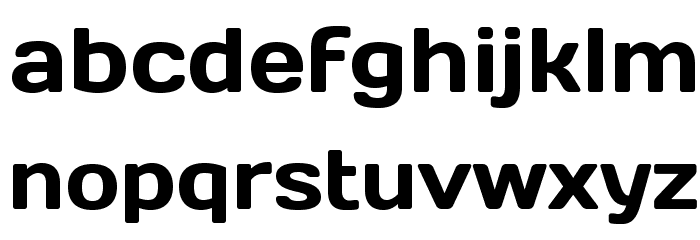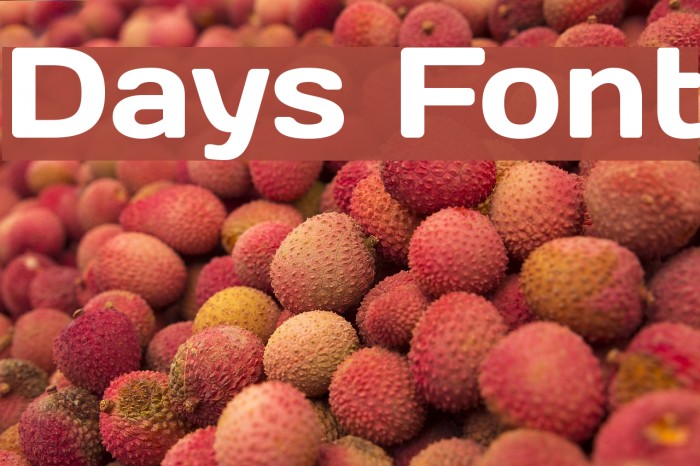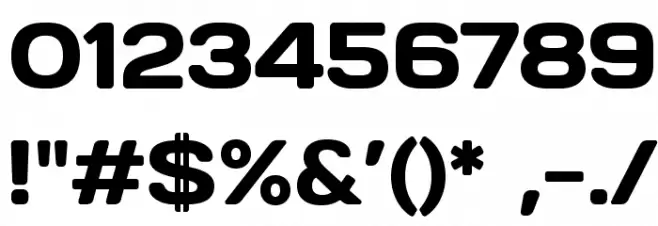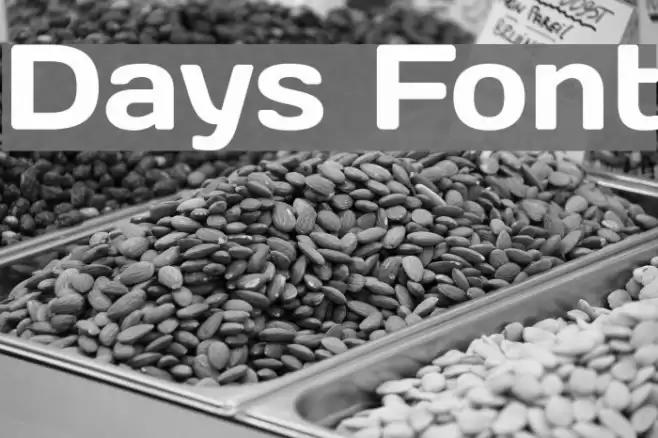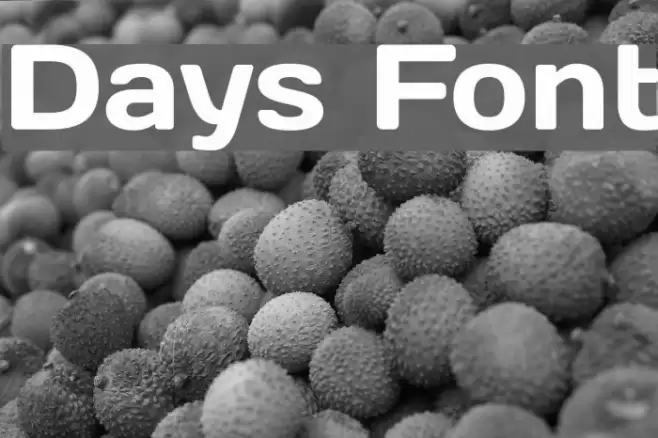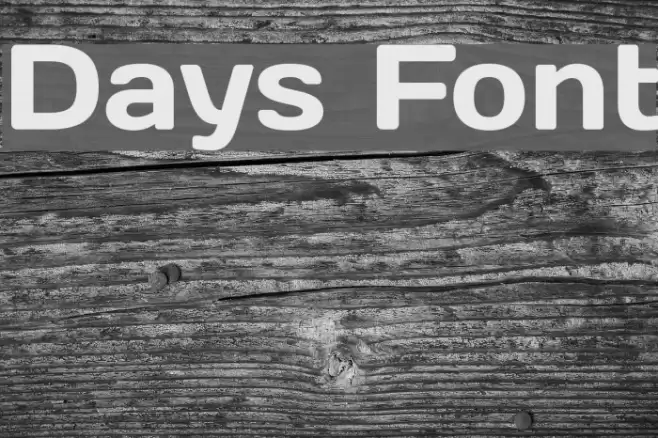
Days Font
This font features a bold and modern sans-serif style with clean, rounded edges that give it a friendly and approachable appearance. The characters are uniformly thick, providing a strong presence on the page. The uppercase letters are slightly wider than the lowercase, maintaining a consistent visual weight across different text sizes. The numerals are clear and easy to read, making them suitable for various applications. Special characters are well-defined, enhancing the font's versatility. The overall design is sleek and contemporary, making it ideal for digital and print media.
A bold, modern sans-serif font with rounded edges and a friendly appearance.
- Proposed Projects: Ideal for branding, advertising, web design, and print materials where a modern and approachable look is desired.
- Use Case: Headlines, Logos, Branding